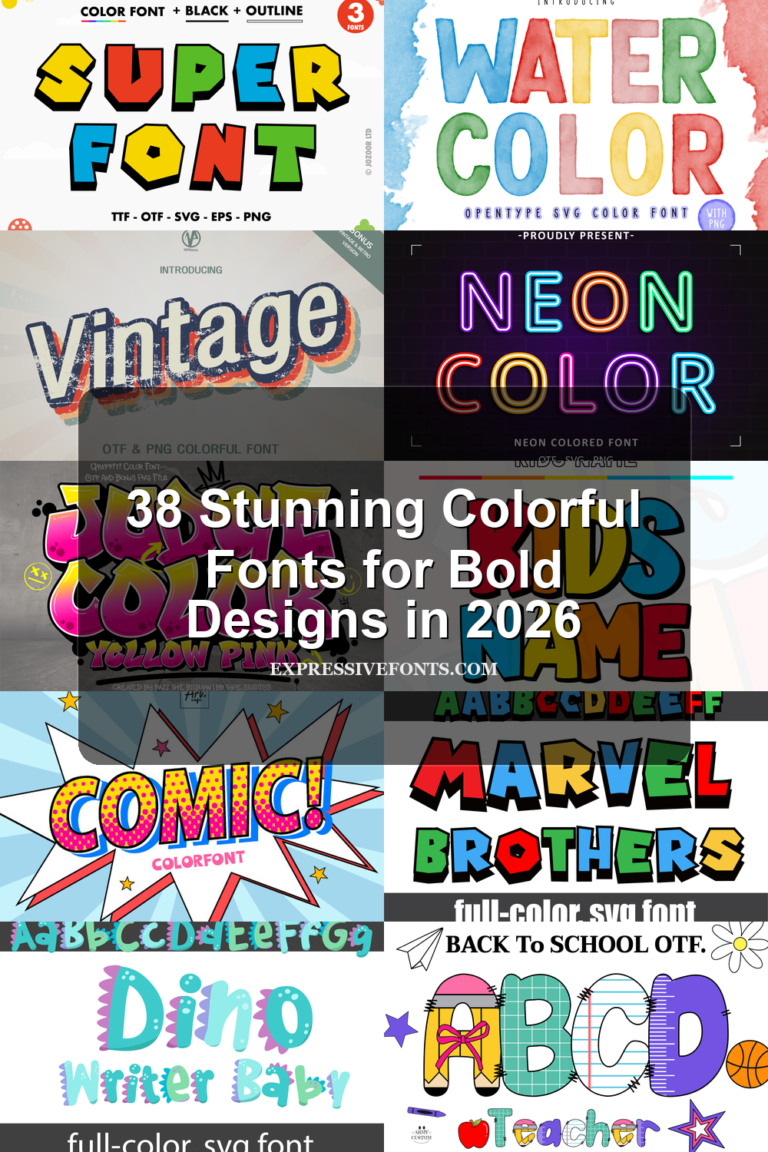
38 Stunning Colorful Fonts for Bold Designs in 2026
Colorful Fonts are useful when typography needs to act as the main visual element, not just support the design. This roundup brings together 38 fonts with bold fills, textured outlines, playful patterns, SVG effects, graffiti shapes, toy-block forms, patriotic details, beach themes, comic energy, and kid-friendly lettering. Most of these fonts are display-focused, so they…